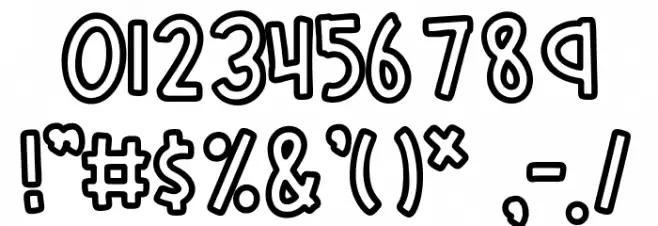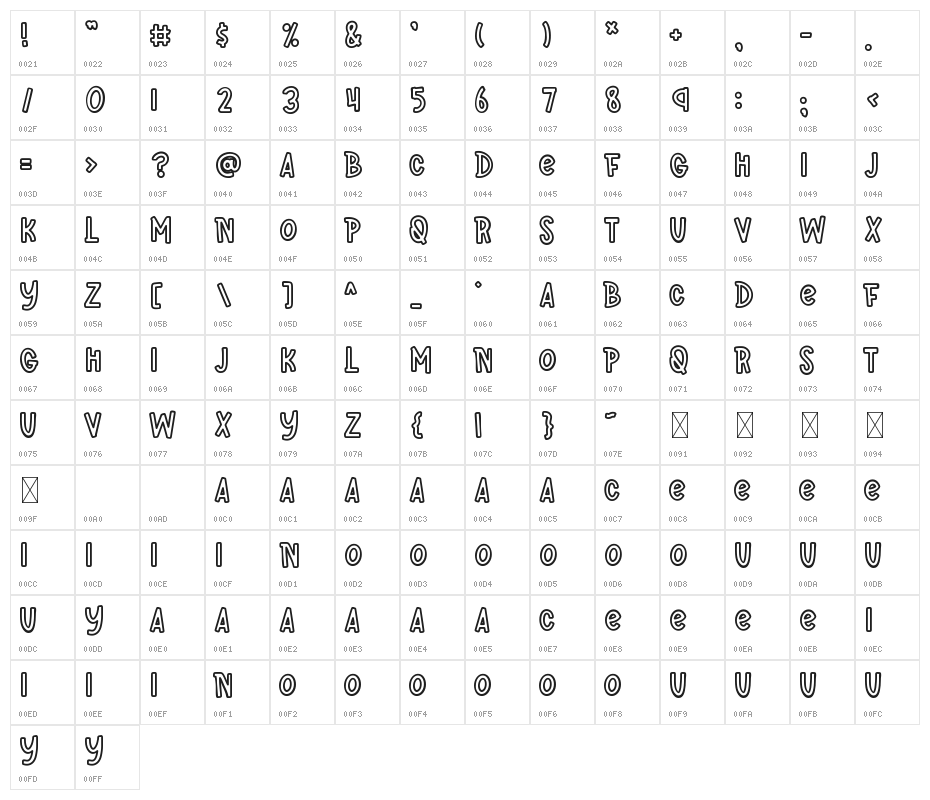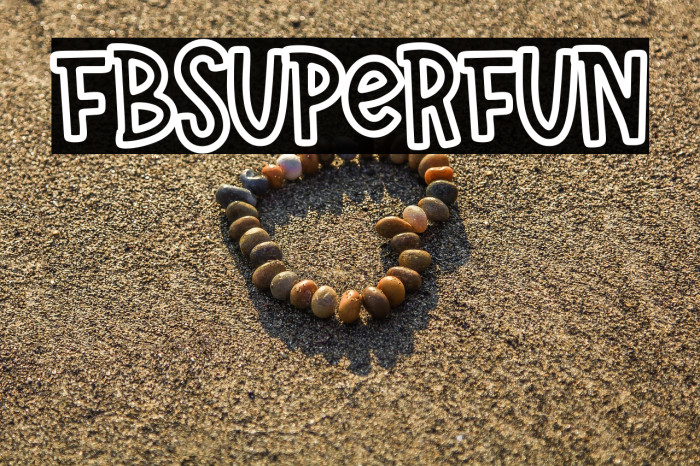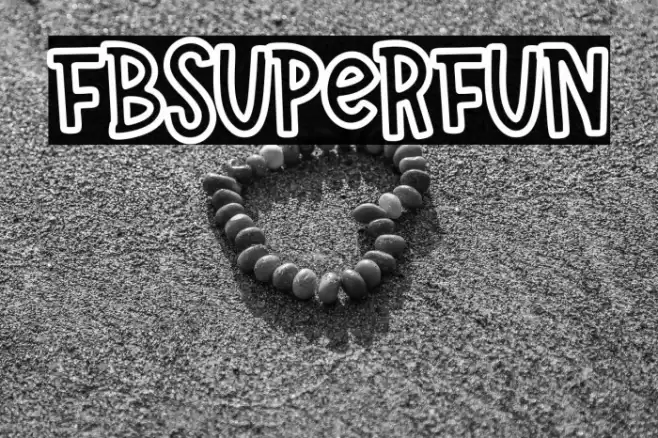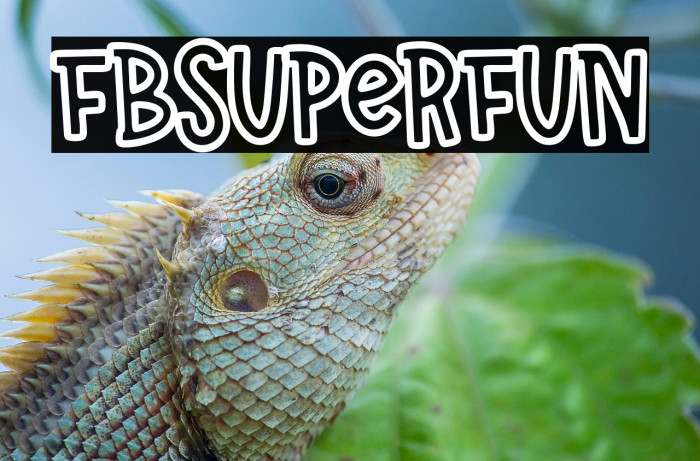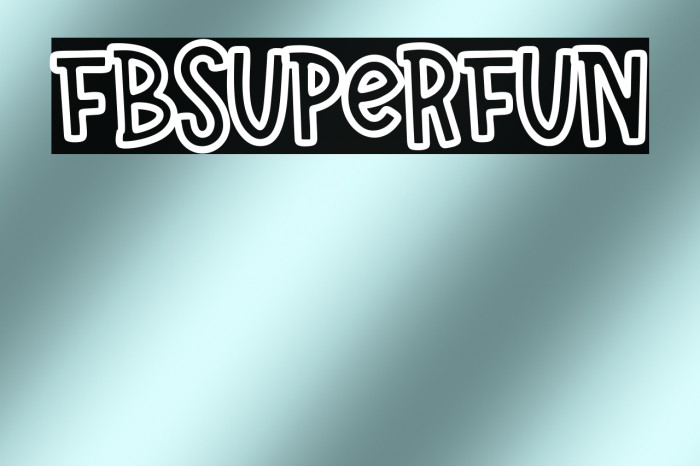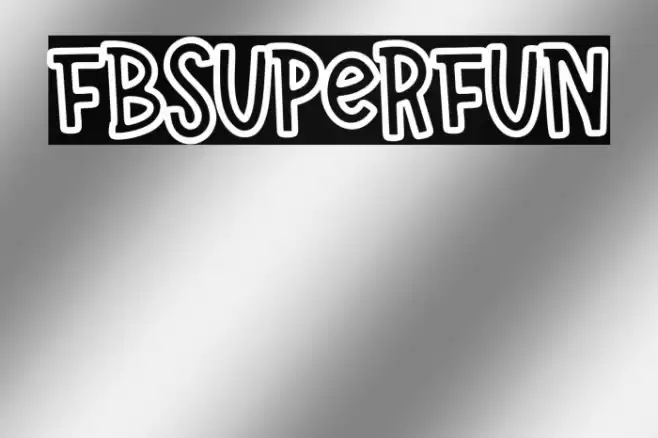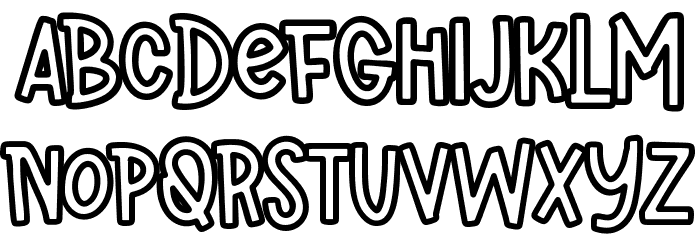
FBSuperFun Font
FBSuperFun Description
This playful and bold font features thick, rounded strokes with a cartoonish, hand-drawn style. The characters are outlined, giving them a bubble-like appearance that adds a sense of fun and whimsy. The uppercase and lowercase letters maintain consistent proportions, while the numbers and special characters complement the overall design. This font's unique style makes it stand out, offering a lively and energetic vibe suitable for creative projects.
| Overall Style | Playful, Cartoonish, Fun |
| Use Case | Headlines, Logos, Posters, Invitations |
| Proposed Projects | Ideal for children's books, comic strips, playful branding, party invitations, and any project requiring a fun and lively typeface. |